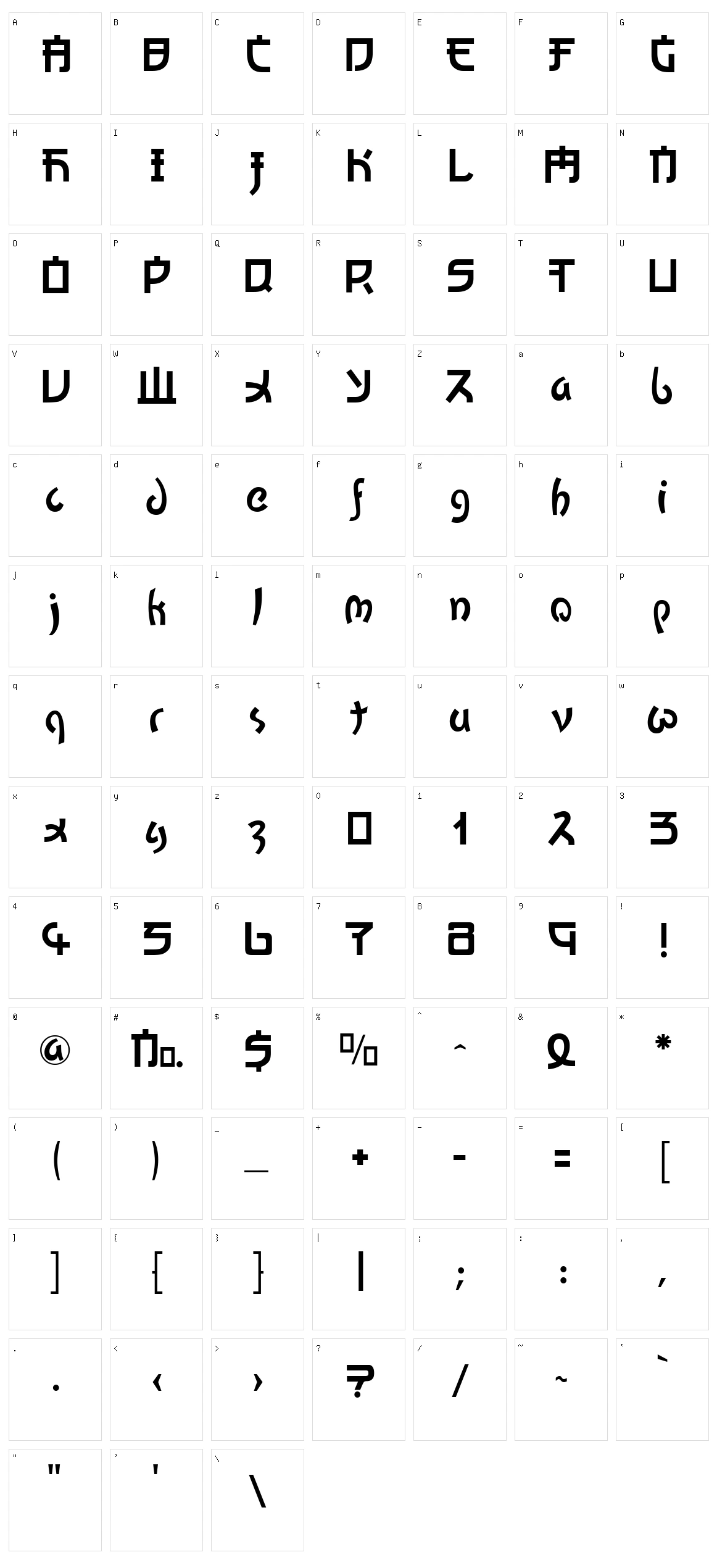
Kato
Designed by: K-Type
Category: Asian
=== KATO ===
Keith Bates / K-Type © 2001, 2007 (version 3.03)
Originally conceived as two separate Japan-inspired fonts, the upper and lower cases can be mixed at the typographer's own risk.